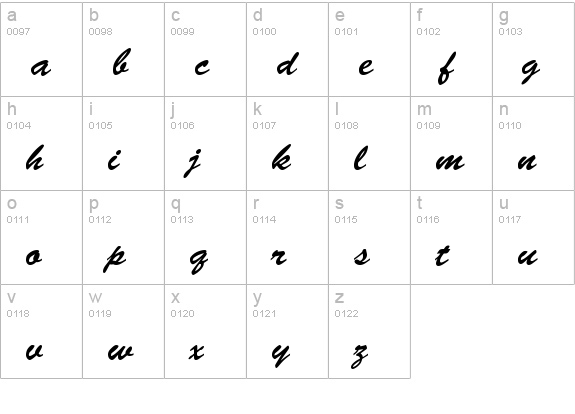
BrushScrD Font Details
Introducing BrushScrD, a dynamic and expressive font that exudes creativity and modernity. This unique typeface combines the elegance of a traditional script with the boldness of a brushstroke, resulting in a versatile and eye-catching design. Perfect for adding a touch of personality to your projects, BrushScrD is ideal for logos, branding, invitations, posters, and more. The best part? BrushScrD is available for free download at FontsMarket.com, making it easily accessible for designers and creators looking to elevate their work with a distinctive and stylish font. Don't miss out on the opportunity to enhance your designs with BrushScrD's playful and artistic charm. Download it today and unleash your creativity!